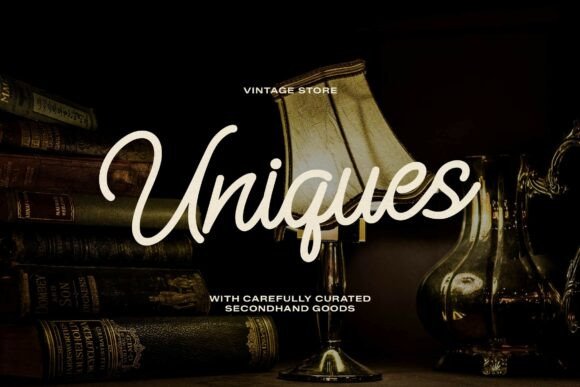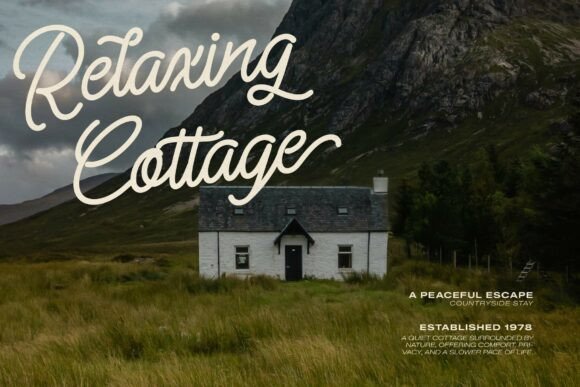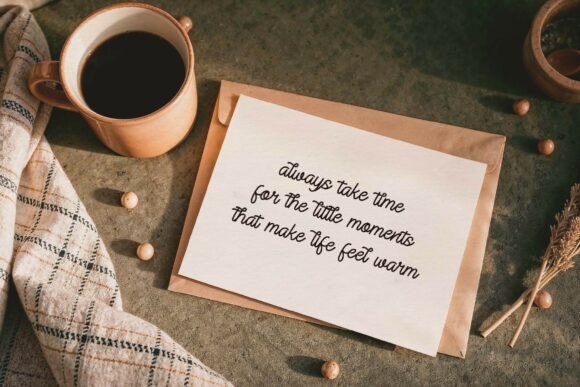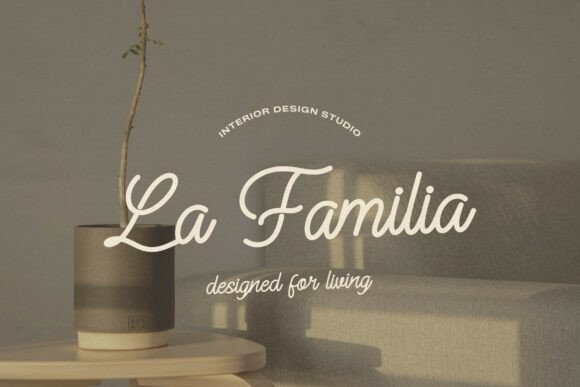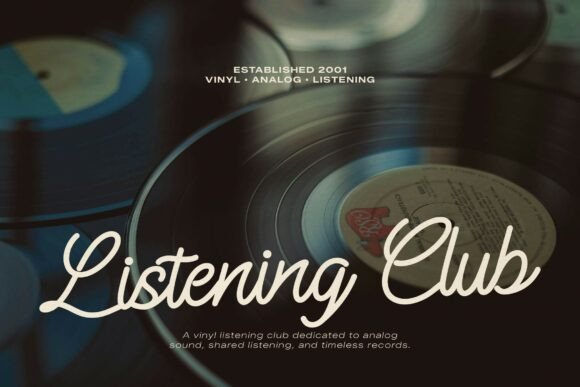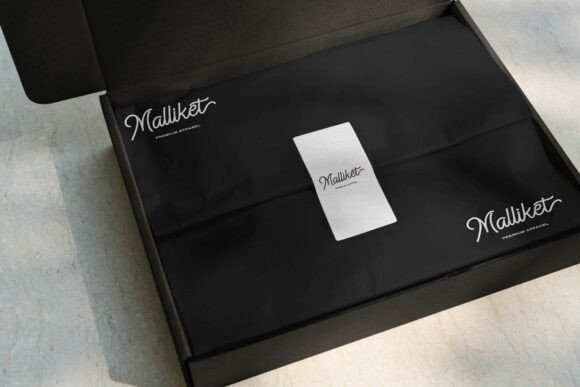
Introduction to Alontima Font
Alontima is a sophisticated and fluid monoline script font that captures a contemporary calligraphic aesthetic.
Produced by Gracetype Studios, the typeface is characterized by its consistent stroke weight and a rhythmic, sweeping visual flow Its defining creative hallmark is the use of elegant, interlocking swashes and extended terminal flourishes, which give the text a customized, artisanal signature quality.
Key Features of Alontima Font